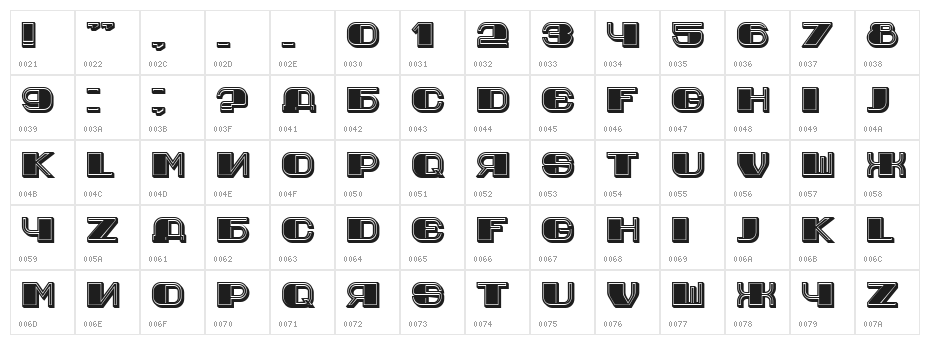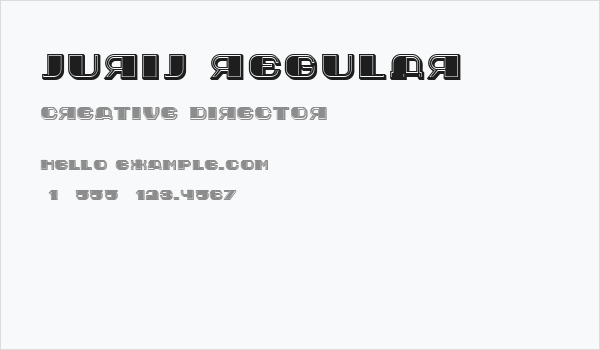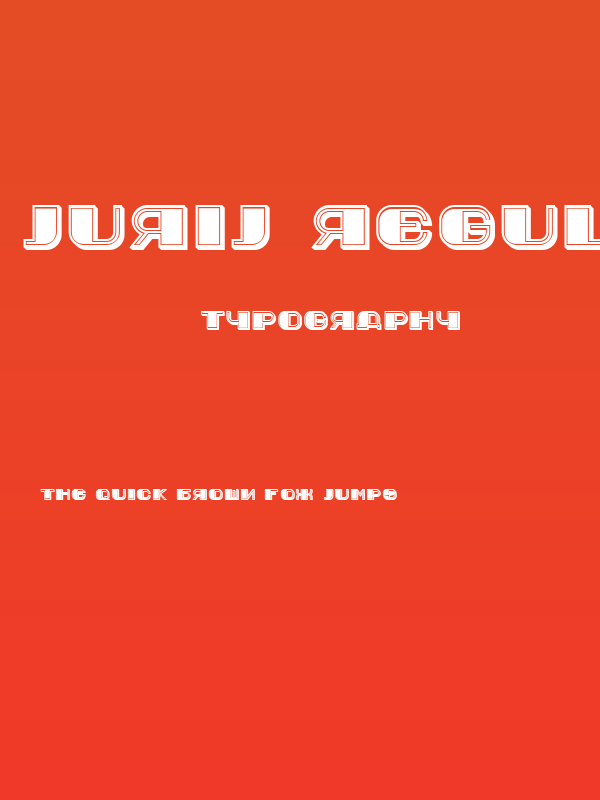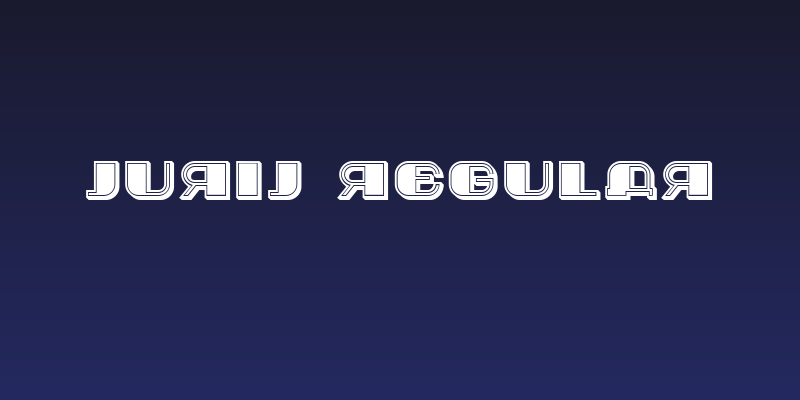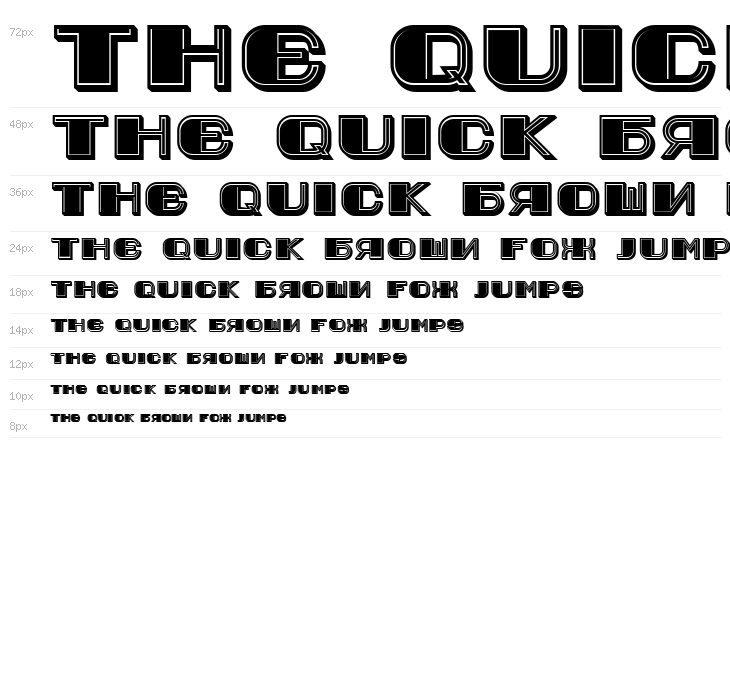
Jurij Regular Font
Jurij Regular Description
This font features a bold, geometric style with a strong presence. Each character is outlined with a thick border, creating a three-dimensional effect that adds depth and emphasis. The letters are uppercase and have a consistent height, with sharp angles and clean lines that convey a modern and industrial aesthetic. The numbers and special characters follow the same design principles, ensuring uniformity across all elements. This font is ideal for projects that require a striking and impactful visual statement.
| Proposed Projects | Ideal for branding, posters, headlines, and any design that requires a bold and modern look. |